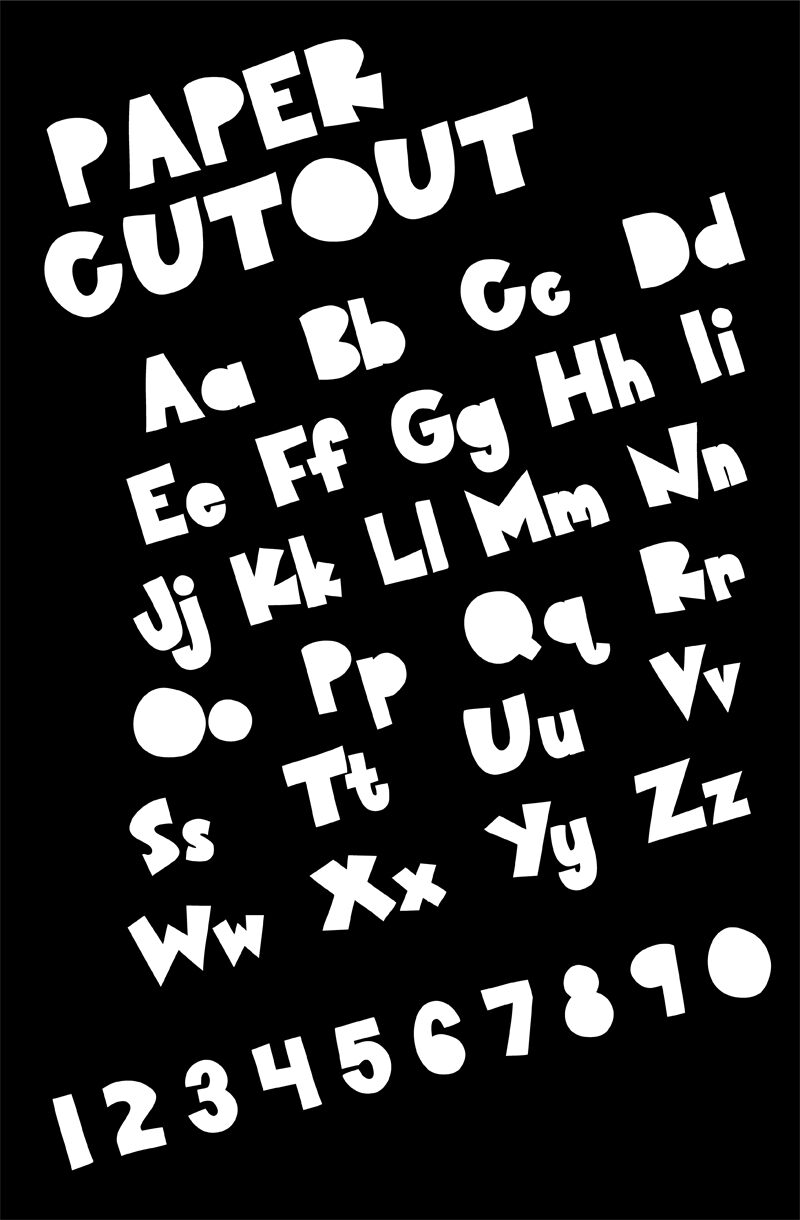
Paper Cutout by Kimmy Kirkwood is a free comic display font with broad, uneven letters shaped like hand-cut paper. Tilted edges, abrupt curves, and shifting widths give the alphabet a lively collage quality.
A children's publisher or craft brand could use it for covers, packaging, and activity materials. The chunky silhouettes connect easily with torn-paper animals, layered shapes, and classroom artwork. It is especially convincing in playful titles that treat the lettering as part of the illustration.